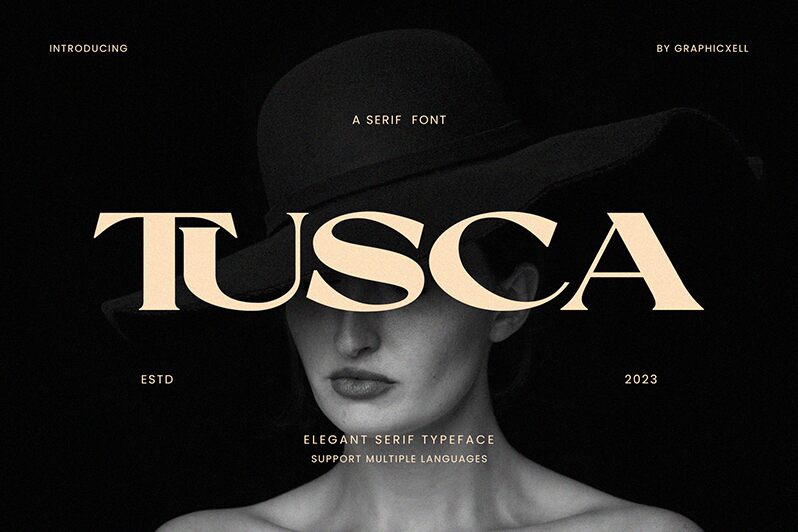
Tusca font, created by Graphicxell, is a free serif font of high-end appeal with a classic influence. With a sophisticated and elegant style, the font’s luxurious design immediately adds a powerful effect to any graphic design. Its refined look encapsulates a dramatic and intentional twist on a modern take of a classic serif font.
Tusca’s versatility in style means the typeface is suitable in many industries and projects. Spruce up your fashion branding, corporate identity, or product package design with its modern touch. Complete the look of your food menu, music album cover, website typography, social media posts, or marketing presentation with this must-have typeface!